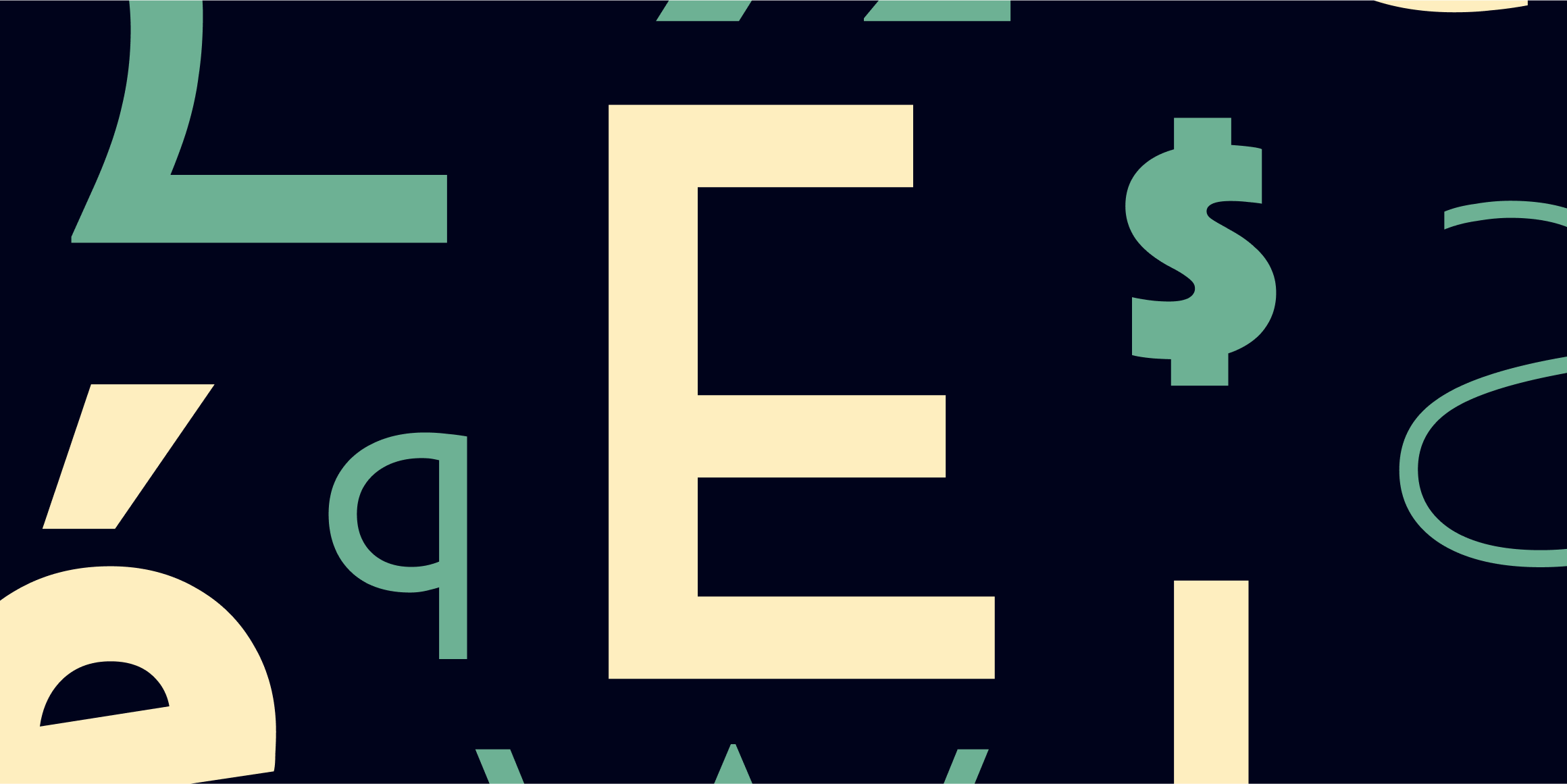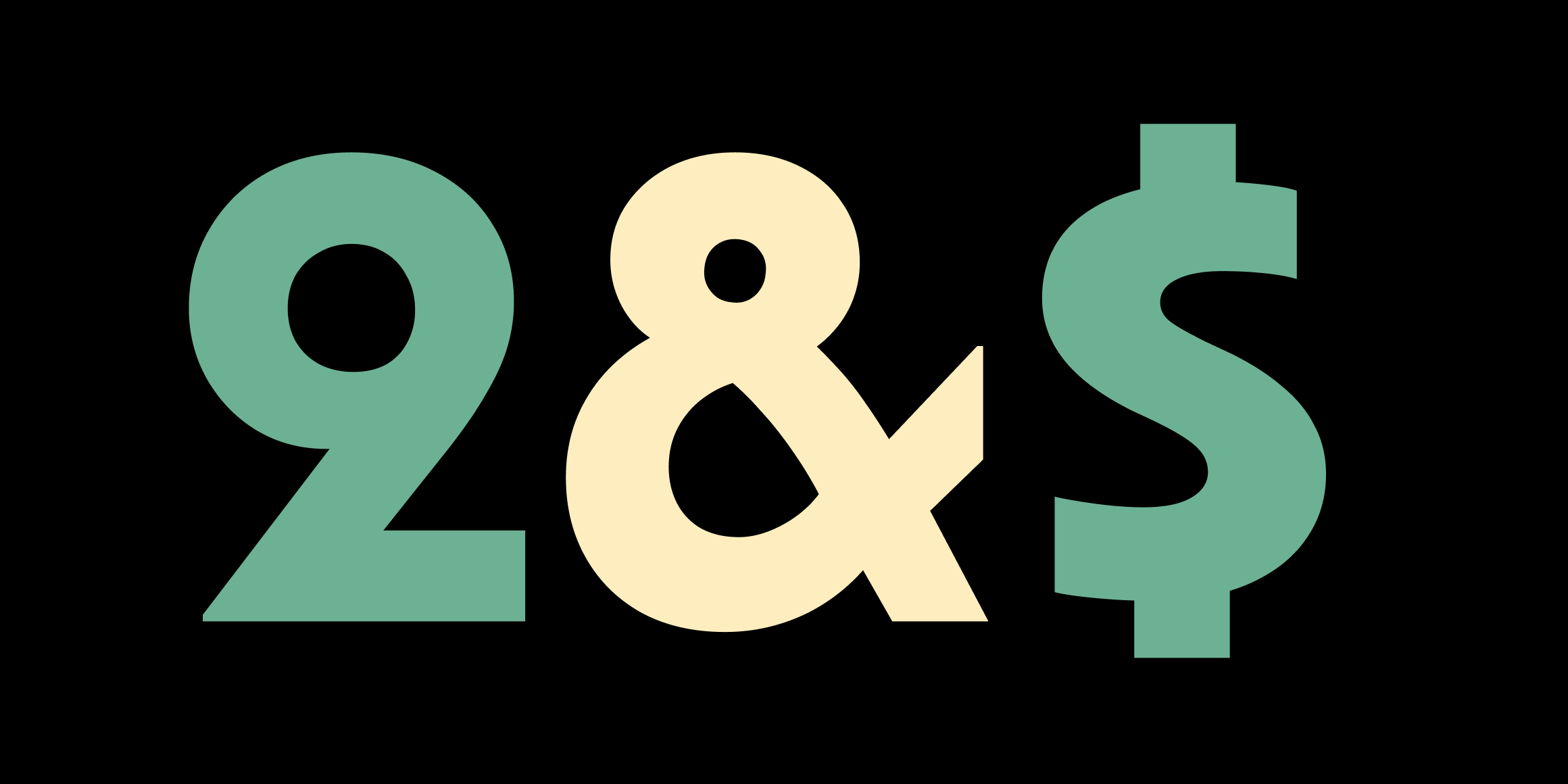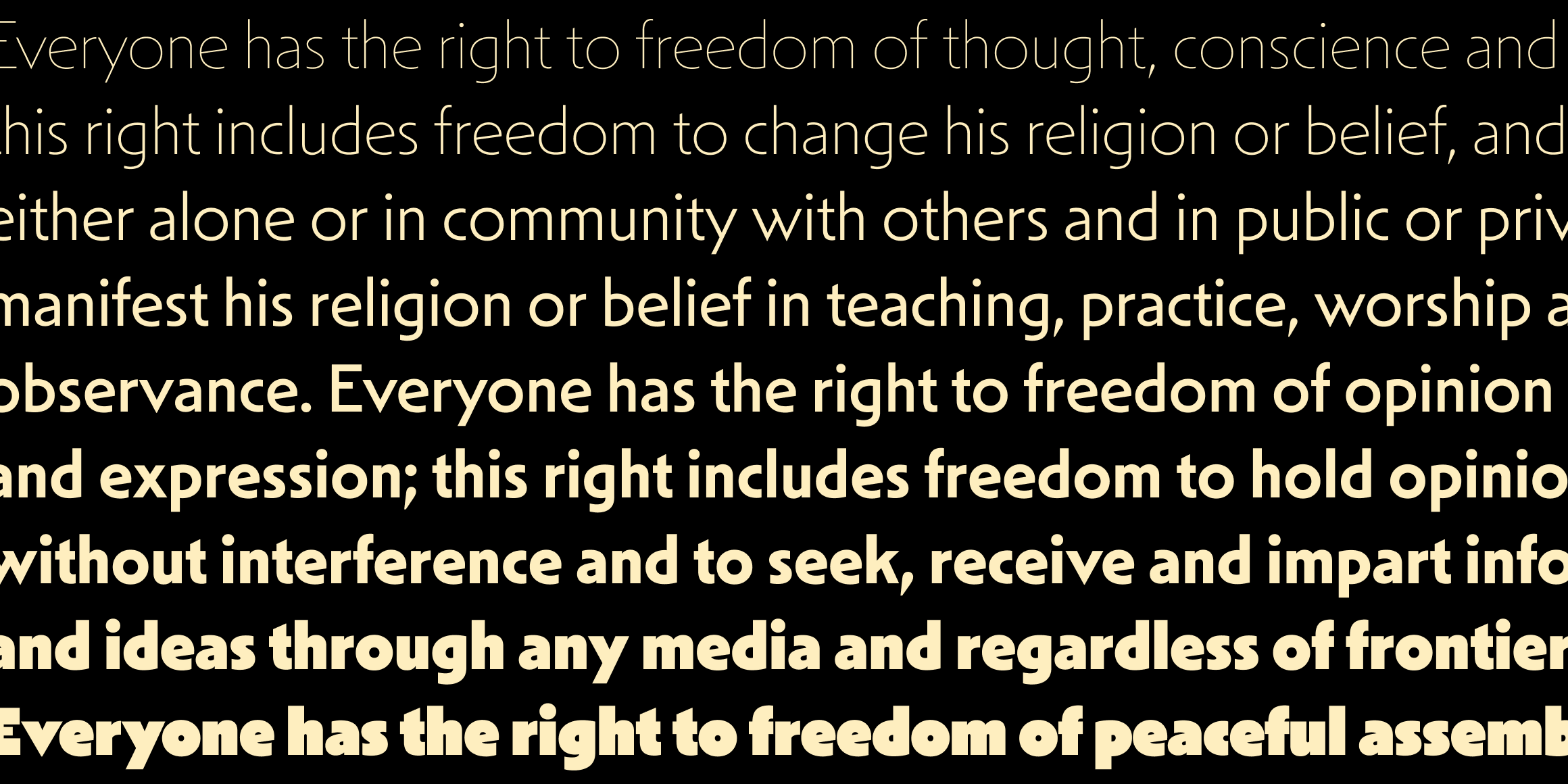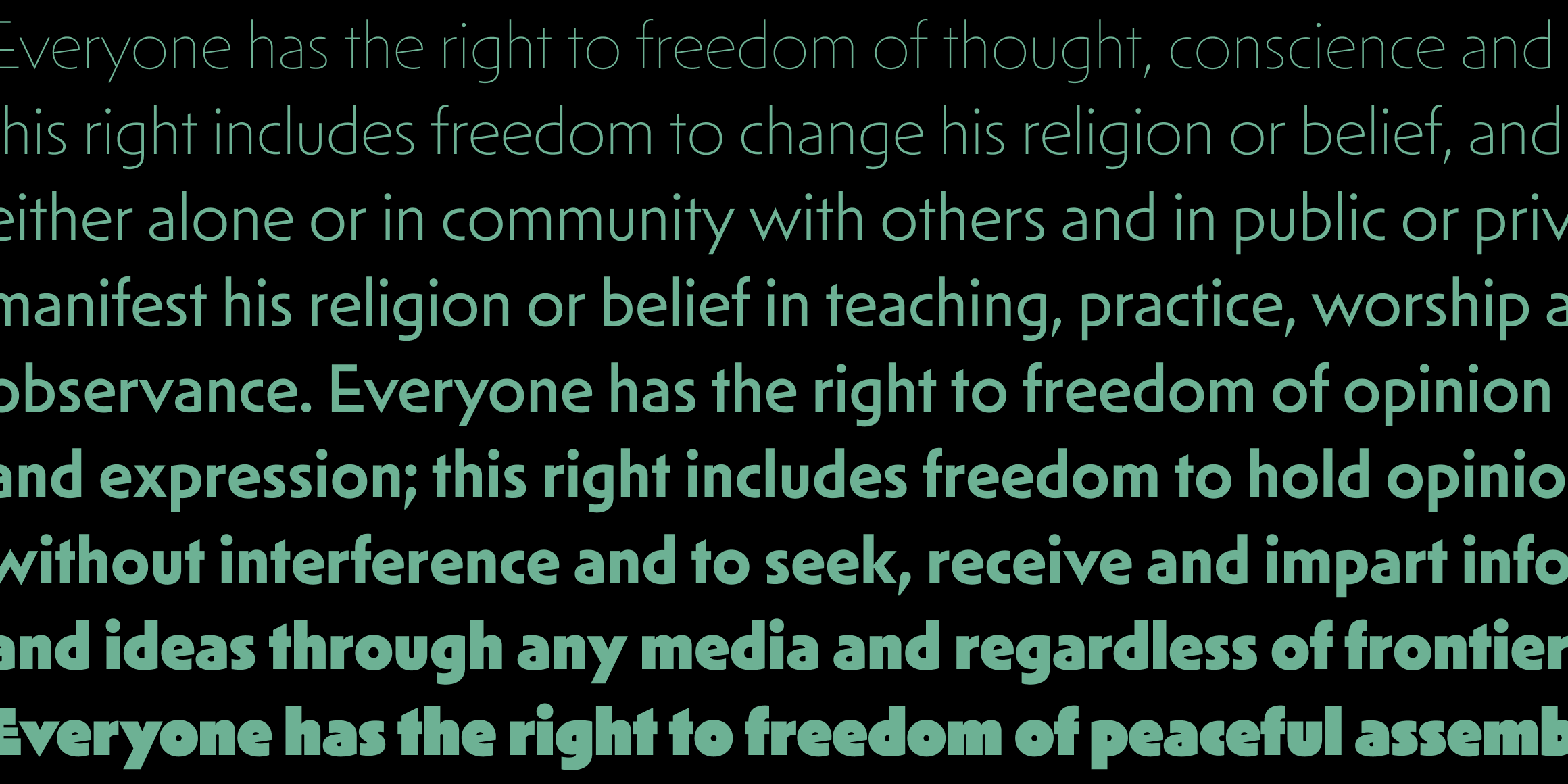
Marlik
Marlik is a contemporary Arabic typeface that reflects the modernist aesthetics of ‘simplified’ Arabic dating back to the hot-metal typesetting era, but restores the conventional Arabic proportions essential to a good reading experience.
- Borna Izadpanah